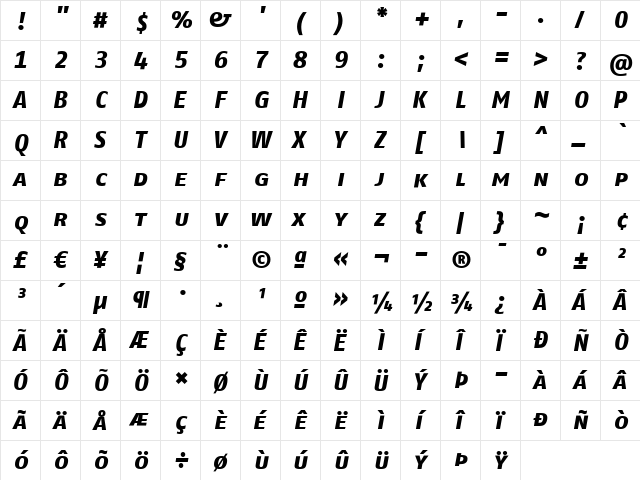
FagoNoTf ItalicExtrabold
Design Context for FagoNoTf Typeface
FagoNoTf is a composed and adaptable typeface that performs quietly and consistently across a wide range of design contexts. Its italic angle brings a sense of urgency and motion to the letterforms. Its bold stroke weight gives it real presence on the page.
Pro Tip: Use FagoNoTf for emphasis, pull quotes, and subheadings where its slanted energy can add rhythm to the layout.